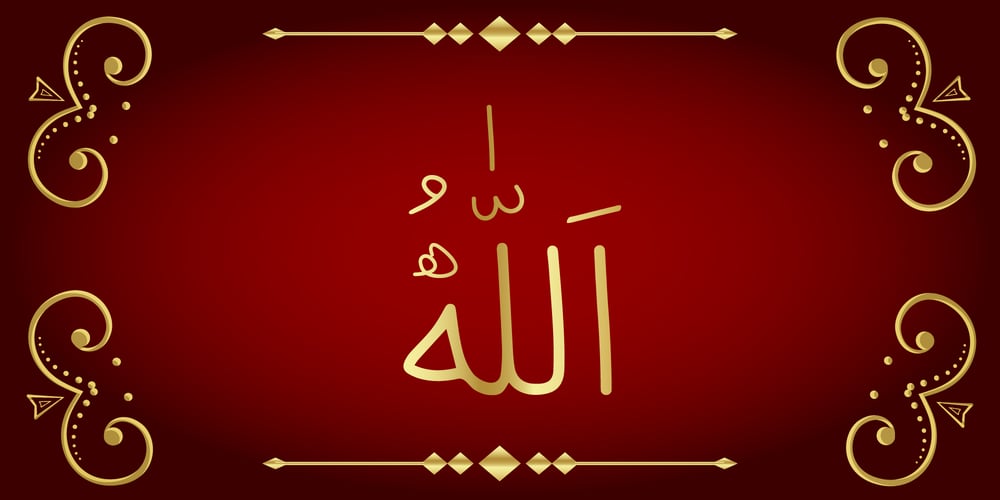
99 Names of ALLAH Handwriting 2 Font Family was designed by Ibrahim Abdo and published by Islamic Calligraphy75. 99 Names of ALLAH Handwriting 2 contains 1 styles and family package options. We have transformed the “99 names of ALLAH” into a font. That means each key on your keyboard represents 1 of the 99 names of ALLAH Aaza Wajal. The fonts work with both the English and Arabic Keyboards. We call this Calligraphy “Handwriting 2” because it is the second handwritten design. The first “Alef” also has an alef, this indicates that the name is pronounced as “AR-RAHMAAN”. (in the zip file you will find a pdf file explaining the differences in the “harakat”, pronunciation and spelling according to the Holy Quran). This calligraphy is not only handwritten and very clear to read, it’s even more crisp than the first handwritten font. No letters overlaps and the decorative symbols are at minimum.Decorative letters used in this calligraphy: “Mim, Aain, Sin, HHe, He, Saad & Ta”.Purpose & use:- Writers: Highlight the names in your texts in beautiful Islamic calligraphy.- Editors: Use with kinetic typography templates (AE) & editing software.- Designers: The very small details in the names does not affect the quality. Rest assured it is flawless. The MOST IMPORTANT THING about this list is that all the names are 100% ERROR FREE, and you can USE THEM WITH YOUR EYES CLOSED. All the “Tachkilat” are 100% ERROR FREE, all the “Spelling” is 100% ERROR FREE, and they all have been written in accordance with the Holy Quran. No names are missing and no names are duplicated. The list is complete “99 names +1”. The +1 is the name “ALLAH” ‘Aza wajal.Another important thing is how we use the decorative letters. In every font you will see small decorative letters, these letters are used only in accordance with their respective letters to indicate pronunciation & we don’t include them randomly. That means “mim” on top or below the letter “mim”, “sin” on top or below the letter “sin”, and so on and so forth. Included: Pdf file telling you which key is associated with which name. In that same file we have included the transliteration and explication of all 99 names. Pdf file explaining the differences in the harakat and pronunciation according to the Holy Quran. Here is a link to all the extra files you will need:https://drive.google.com/drive/folders/1Xj2Q8hhmfKD7stY6RILhKPiPfePpI9U4?usp=sharing